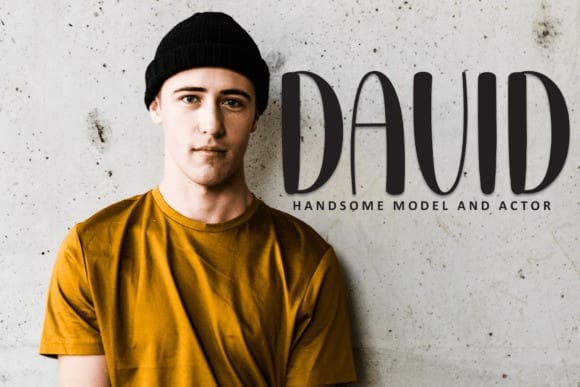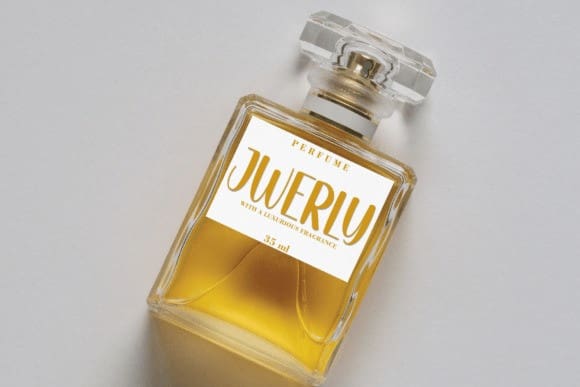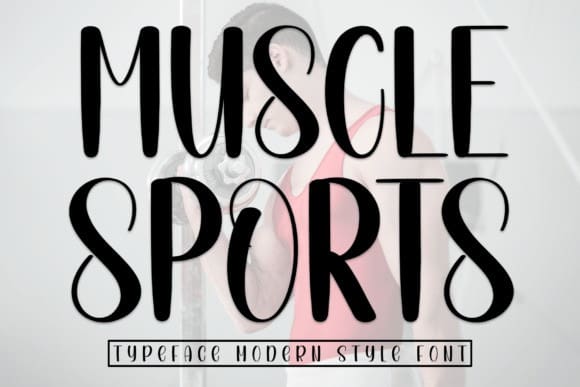
Muscle Sports Font
Muscle Sports Font is a sweet and friendly handwritten font. Fresh and cute, this font is ideal for writing wedding invitations, cards, or any other design that might need a fun touch!